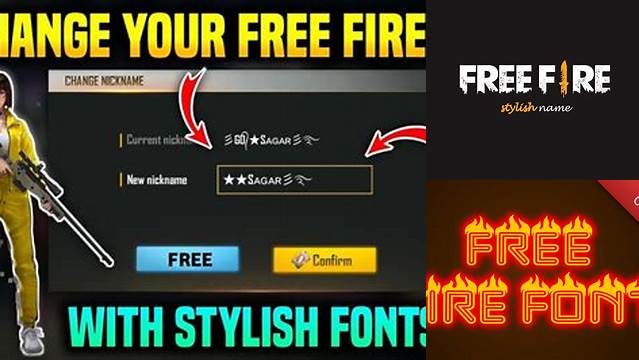
Free Fire Font Generator: Create Cool Nicknames
Hey guys! Are you a Free Fire fanatic looking to stand out from the crowd? Want a cool and unique nickname that reflects your awesome gaming skills? Well, you've come to the right place! In this article, we're diving deep into the world of Free Fire text font generators, exploring how they work and how you can use them to create eye-catching nicknames that will make you the envy of all your squadmates.
Why Use a Free Fire Text Font Generator?
In the fast-paced world of Free Fire, your nickname is your identity. It's the first thing other players see, and it's your chance to make a lasting impression. A boring, standard nickname simply won't cut it if you're aiming to be a top player or streamer. That's where Free Fire text font generators come in. These handy tools allow you to transform ordinary text into a variety of stylish fonts, symbols, and characters that are not typically available on your keyboard. Think of it as giving your nickname a serious makeover! Using a unique font can help you:
- Stand out from the crowd: In a game with millions of players, a distinctive nickname will make you instantly recognizable.
- Express your personality: Choose a font that reflects your gaming style, whether it's bold and aggressive or sleek and stealthy.
- Intimidate your opponents: A cool and intimidating nickname can give you a psychological edge in battles.
- Enhance your branding: If you're a streamer or content creator, a consistent and memorable nickname is crucial for building your brand.
The best part? Most Free Fire text font generators are incredibly easy to use. You simply type in your desired nickname, and the generator will instantly create a variety of stylish variations. You can then copy and paste your favorite font directly into the game. It's that simple!
Understanding Unicode and Fancy Text
Before we dive into specific generators, let's briefly touch upon the technology behind these cool fonts. Most Free Fire text font generators utilize Unicode characters. Unicode is a universal character encoding standard that assigns a unique number to every character, symbol, and glyph across different languages and platforms. This means that you can use special characters and symbols that aren't typically found on a standard keyboard.
These generators essentially convert your regular text into its Unicode equivalent, allowing you to use fancy fonts and symbols that are supported by Free Fire. This is why you see those cool symbols and stylized letters in other players' nicknames. It's all thanks to the magic of Unicode!
Top Free Fire Text Font Generators to Try
Now that you understand the basics, let's explore some of the best Free Fire text font generators available online. There are tons of options out there, but we've curated a list of some of the most popular and user-friendly choices:
1. LingoJam
LingoJam is a classic and widely used Free Fire text font generator. Its simple interface and vast selection of fonts make it a favorite among gamers. To use LingoJam, simply:
LingoJam offers a wide range of fonts, from bold and gothic styles to cursive and decorative options. You're sure to find something that suits your taste!
2. Nickfinder
Nickfinder is another excellent Free Fire text font generator that goes beyond just fonts. It also offers a variety of symbols and decorations that you can add to your nickname. This allows you to create truly unique and eye-catching nicknames that will make you stand out from the crowd. Nickfinder provides a specialized service catering to the needs of gamers seeking distinctive monikers, featuring a user-friendly platform with an extensive library of fonts and symbols. The fonts range from sleek and modern to edgy and bold, ensuring every player finds the perfect match for their in-game persona. Beyond standard characters, Nickfinder boasts a vast array of artistic symbols and decorative elements, empowering users to craft nicknames that are not just names but personal emblems of gaming identity. Its interface is intuitively designed, making it a breeze for anyone to experiment with various combinations and preview the result in real-time, solidifying Nickfinder's reputation as a go-to resource for personalized gaming names. Moreover, Nickfinder stays updated with the latest gaming trends and aesthetics, consistently adding new styles and symbols to its repertoire. This constant evolution ensures that users always have access to fresh and unique options, keeping their nicknames ahead of the curve and reflective of current gaming culture. For players looking to make a statement in the gaming world, Nickfinder provides the tools and inspiration to forge a name that resonates with their style and skill.
3. Cool Fancy Text Generator
As the name suggests, Cool Fancy Text Generator is all about creating fancy and stylish text. This generator offers a wide range of fonts, symbols, and decorations, allowing you to create truly unique nicknames. Its interface is clean and user-friendly, making it easy to experiment with different styles. Cool Fancy Text Generator specializes in transforming ordinary text into extraordinary expressions, catering to those who seek to inject personality and flair into their digital presence. The platform boasts an extensive collection of fonts, ranging from elegant scripts to bold, modern styles, ensuring that every user finds the perfect aesthetic to match their taste and message. Beyond fonts, the generator provides a diverse array of symbols, ornaments, and decorative elements, empowering individuals to craft text that is not only visually appealing but also uniquely their own. This versatility makes it an invaluable tool for creating eye-catching social media posts, standout messaging, or personalized branding. The intuitive design of Cool Fancy Text Generator further enhances its appeal, allowing users to easily experiment with various combinations and preview the results in real-time. This seamless experience encourages creativity and ensures that users can effortlessly bring their text-based visions to life. Moreover, the platform is continuously updated with fresh styles and features, keeping pace with the evolving trends in digital design. Whether for professional or personal use, Cool Fancy Text Generator provides the resources to transform ordinary text into a captivating art form.
4. Fancy Text Tool
Fancy Text Tool is another popular option for generating stylish text for Free Fire. It offers a variety of fonts, symbols, and even text art options. Its simple interface makes it easy to use, and you can quickly copy and paste your chosen font into the game. Fancy Text Tool distinguishes itself as a premier online resource for transforming plain text into captivating visual art. This platform is designed for users who wish to add a touch of creativity and individuality to their digital communications, social media profiles, and more. With an expansive library of fonts, ranging from classic scripts to contemporary styles, Fancy Text Tool offers unparalleled variety. Users can explore an array of symbols, emojis, and decorative elements to further enhance their text, making each message or post uniquely expressive. The tool's intuitive interface ensures a seamless and enjoyable user experience, allowing anyone to easily generate fancy text without the need for technical skills. Real-time previews enable users to experiment with different styles and combinations, ensuring the final result perfectly matches their vision. Fancy Text Tool's versatility makes it ideal for a wide range of applications, from crafting eye-catching headlines and social media content to personalizing messages and creating unique usernames. Regular updates introduce new fonts and features, keeping the tool at the forefront of digital design trends. Whether for professional branding, personal expression, or simply adding a creative touch, Fancy Text Tool empowers users to elevate their text and make a lasting impression.
So, there you have it! Everything you need to know about Free Fire text font generators and how to create a killer nickname. With the help of these tools, you can transform your ordinary nickname into a stylish and memorable one that will make you stand out in the world of Free Fire. So go ahead, experiment with different fonts, symbols, and decorations, and create a nickname that truly represents you. Good luck, and happy gaming!